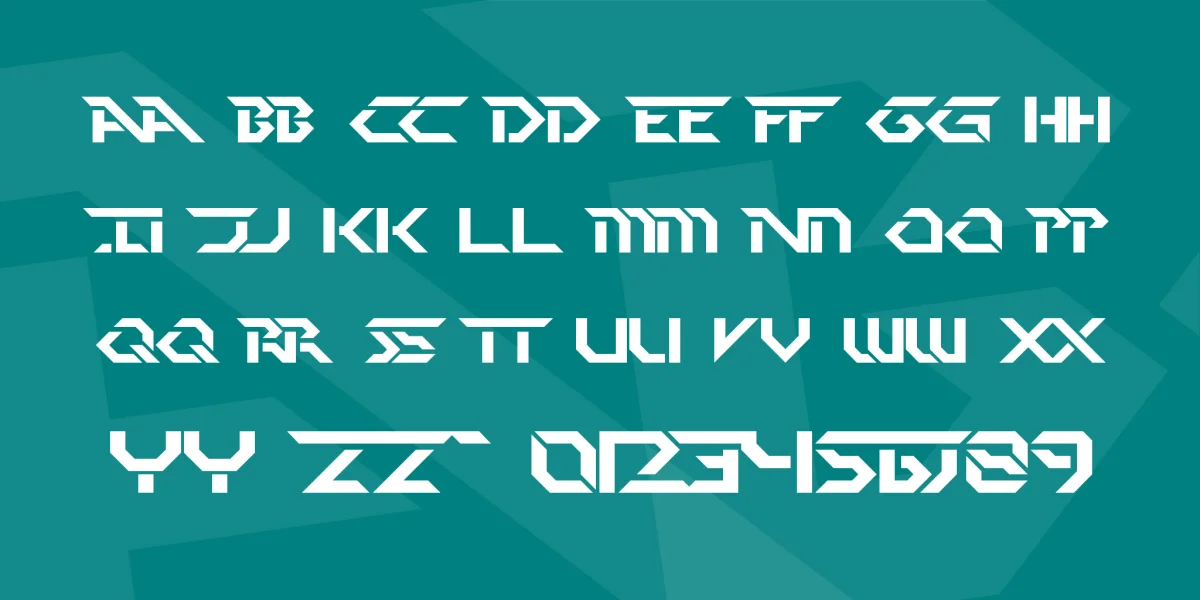
This Font is based on the Logo from the game Perfect Dark.
This Font uses Character Extenders [ !@#$%^ ] to give some of the characters in the Font a longer TOP (when you have the letters A, a, D and/or d in your text). For example, if you type out Perfect Dark", type it out like this, Perfect D@a%rk" to give the a and r in Dark extenders. Each Extender is a different size:
! =x1 length
@ =x2 length
# =x3 length
$ =x4 length
% =x5 length
^ =x6 length
The following characters do not use extenders: CcGgjOoQqSsXx0589"',.
The whole Font is made with Capital letters but some of the Characters have more than 1 letter Character. They are: Ee [the e has a slightly higher middle prong like in the PD LOGO] Ff [the f has a slightly higher lower prong like in the PD LOGO]
Gg
Hh
Ii
Jj
Nn
Oo [you can also use 0 and ) for the O's or 0's]
Ss [you can also use 5 for an S and vice versa]
Uu
Vv
Xx
A few last things. This Font uses A LOT of Kerning to make the Characters fit correctly so make sure what ever program you're using have Character Kerning ON (sometimes if you're using a text editor like Microsoft Word, you usualy have turn the Kerning ON). Finally, to make the Font look more like the Games Logo (slanted), use Italic on the Font.